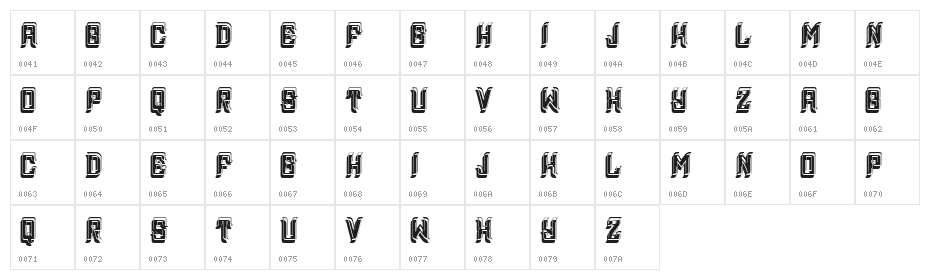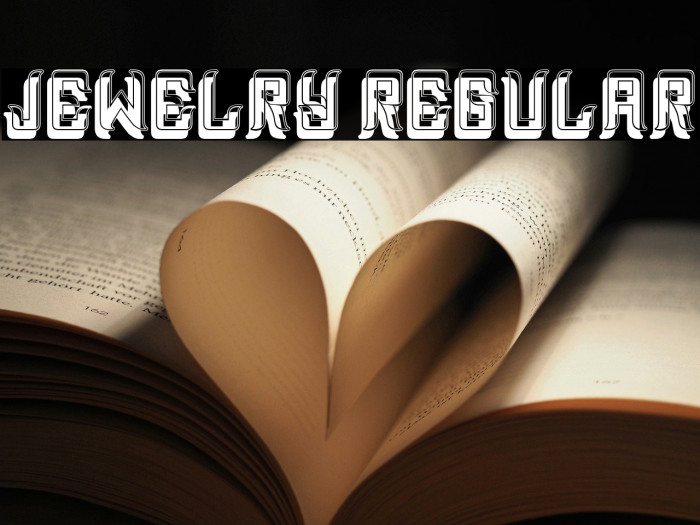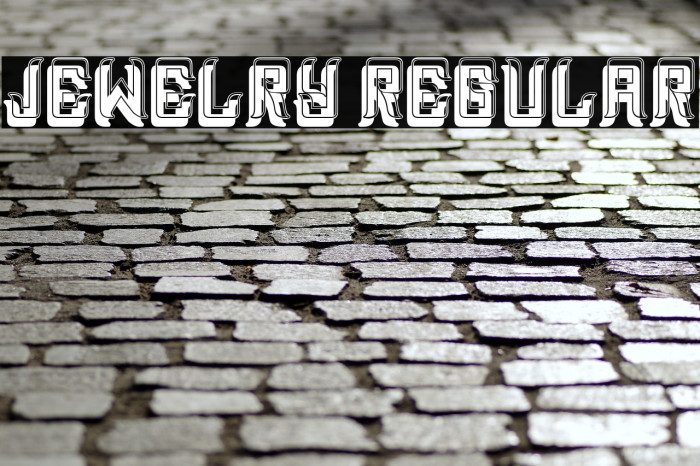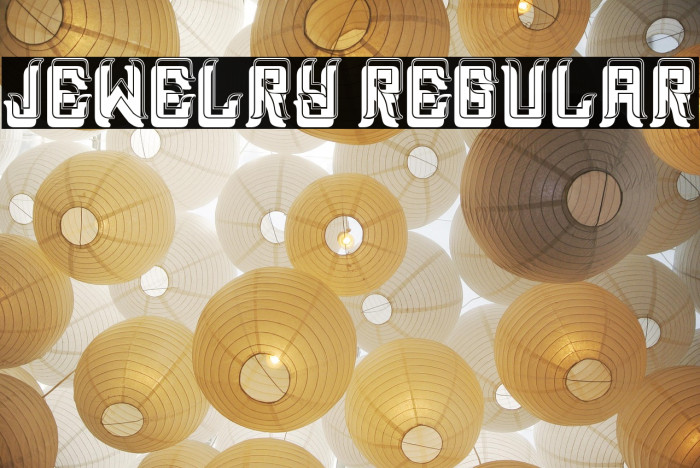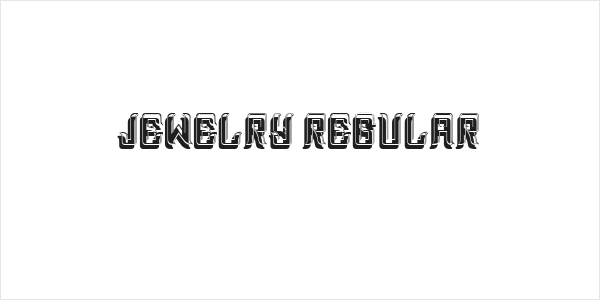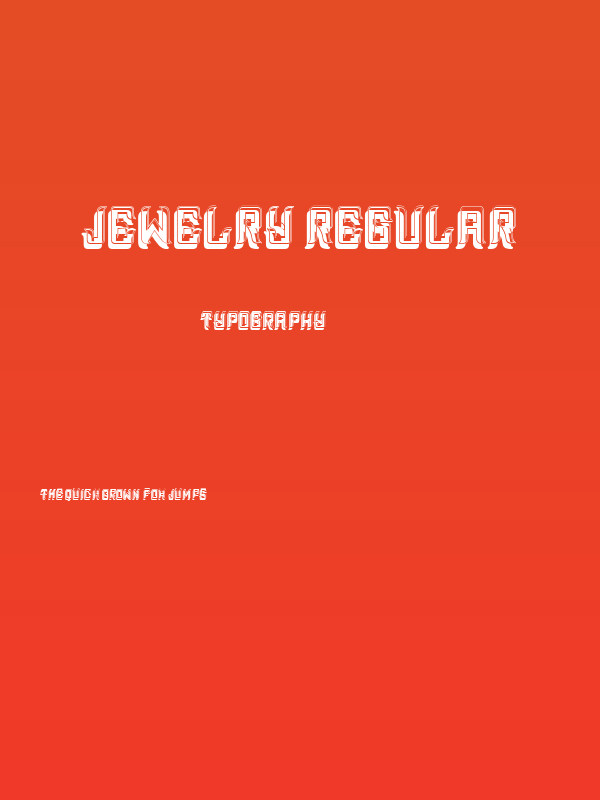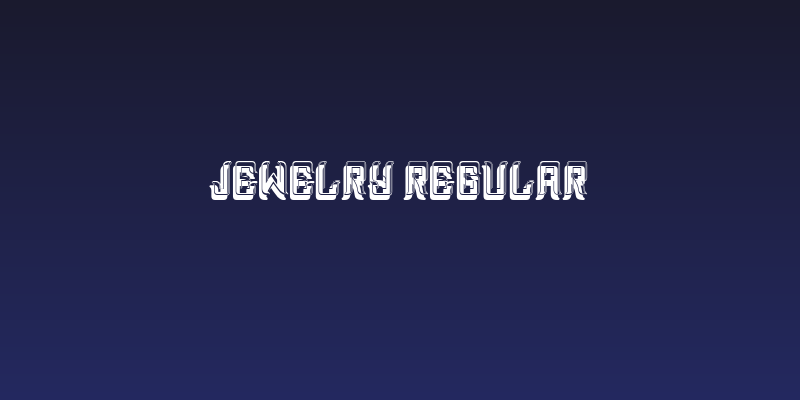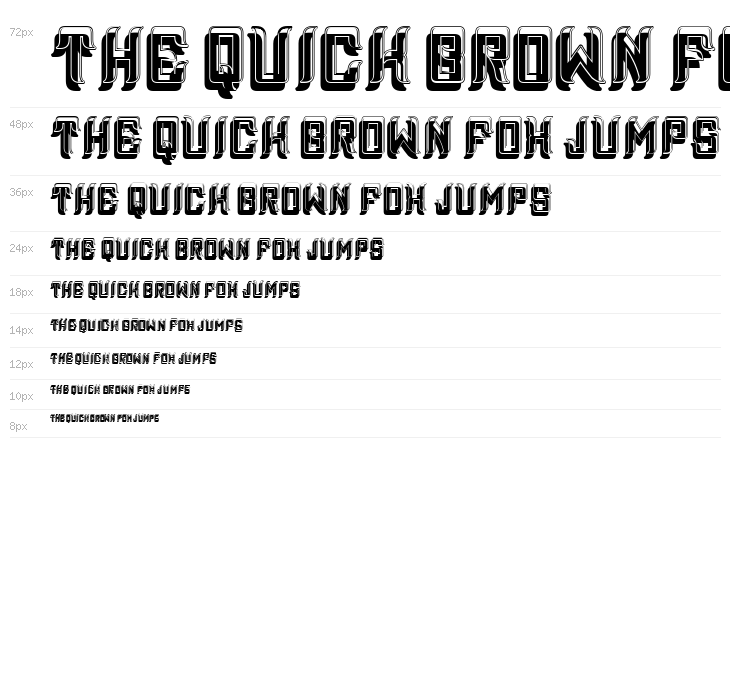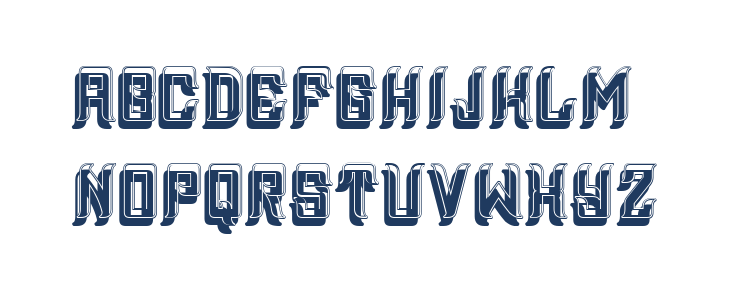
Jewelry Regular Font
Jewelry Regular Description
This font features a bold, decorative style with a three-dimensional effect that gives it a striking, embossed appearance. Each character is meticulously designed with intricate detailing and shadowing, creating a sense of depth and dimension. The font's geometric structure is complemented by sharp angles and clean lines, making it visually impactful. Its unique style is reminiscent of vintage signage, yet it maintains a modern edge with its bold presence. The font's design is perfect for capturing attention and making a statement.
| Overall Style | Vintage, Modern |
| Proposed Projects | Ideal for use in branding, poster design, signage, and any project requiring a standout, eye-catching typeface. |